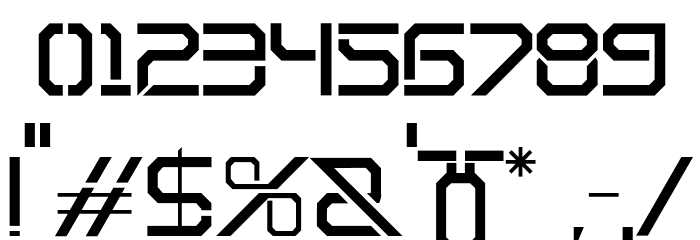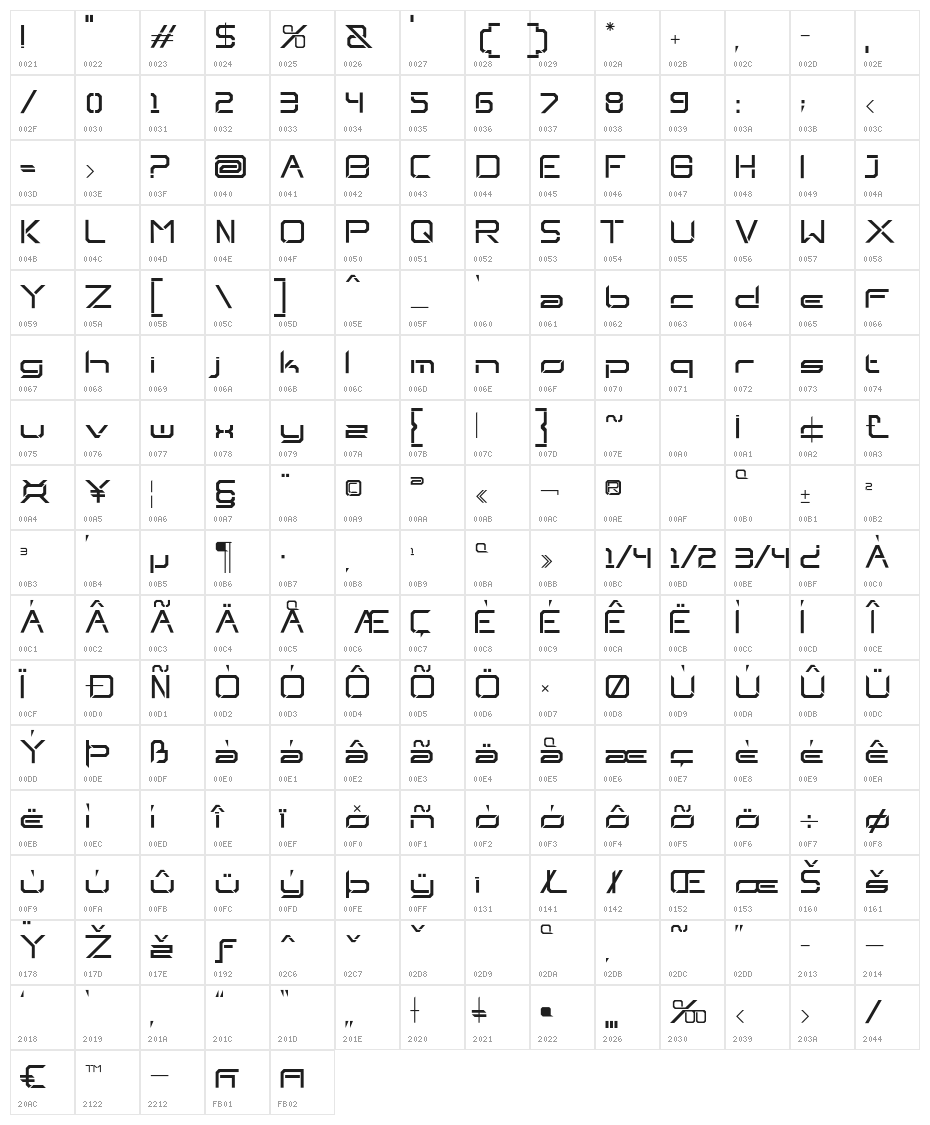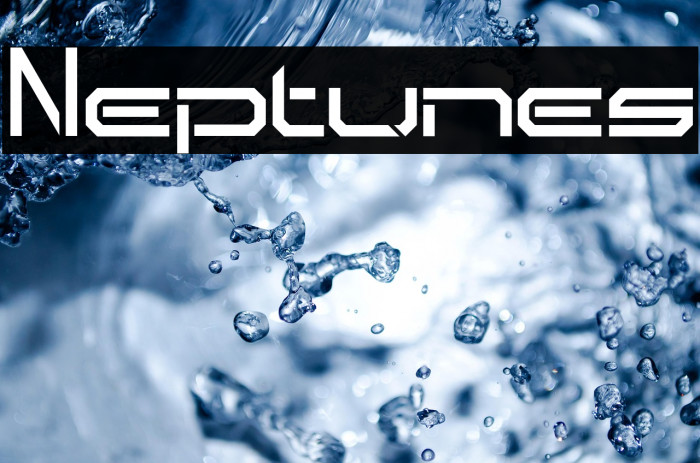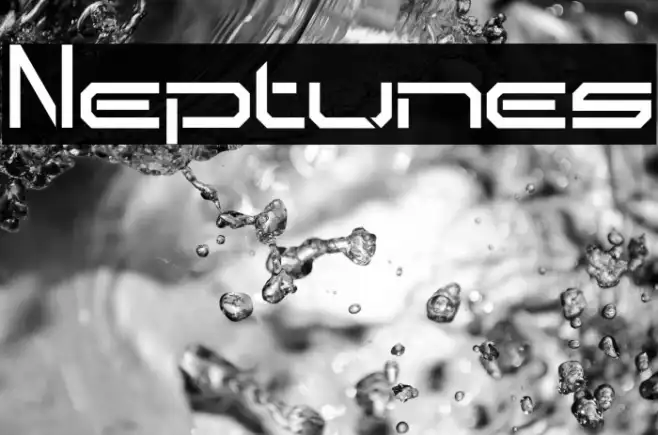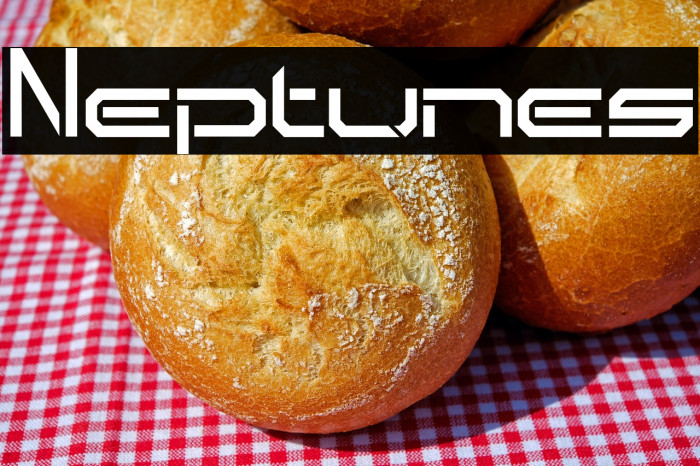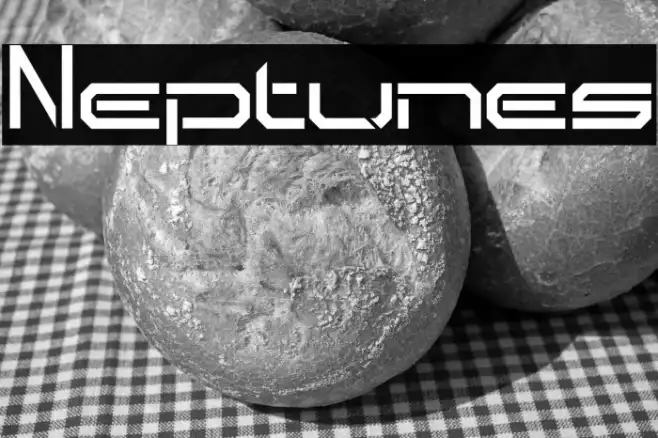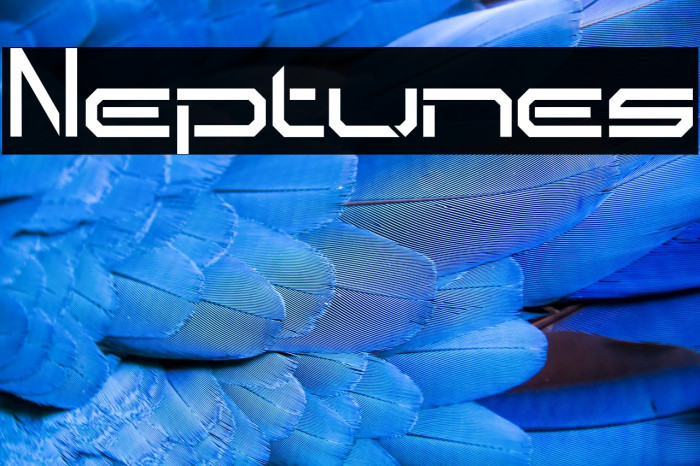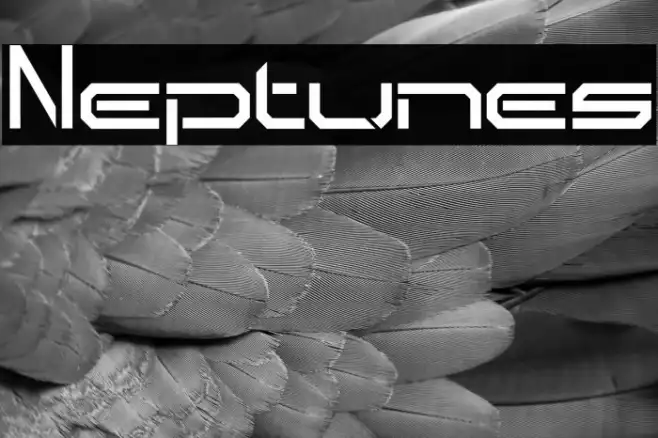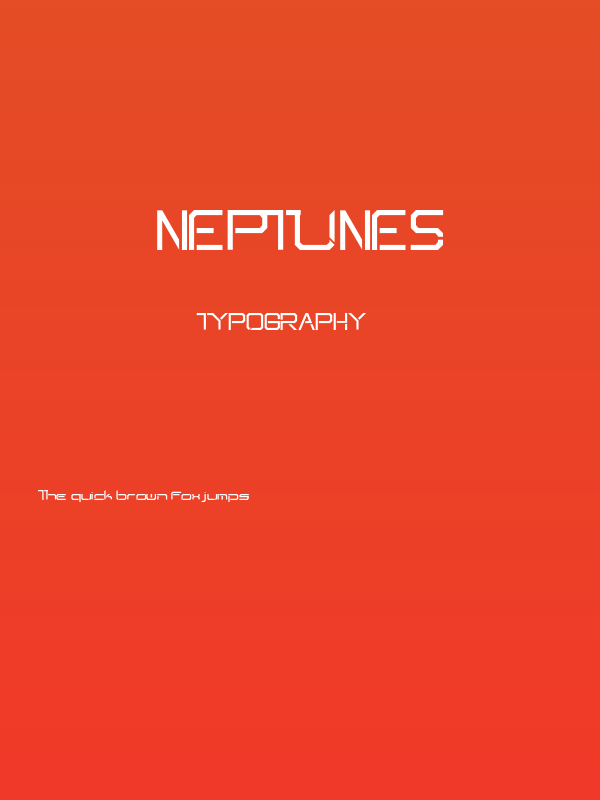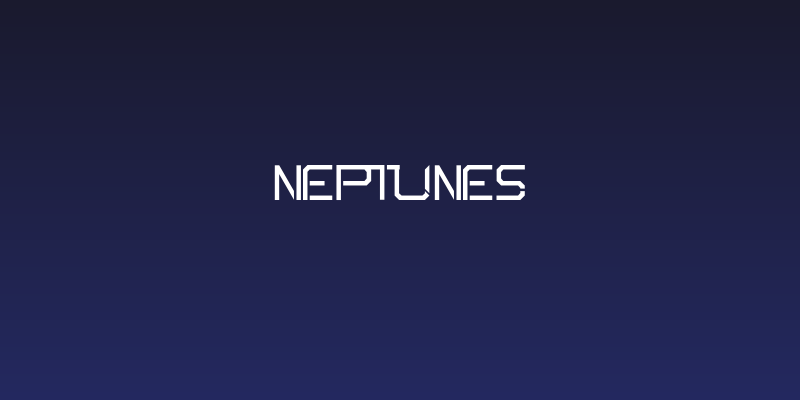
Neptunes Font
Neptunes Description
This font features a futuristic and angular design, characterized by sharp edges and geometric shapes. The uppercase letters are bold and striking, with a consistent angular theme that gives a sense of modernity and innovation. The lowercase letters maintain the same angular style, ensuring uniformity across the typeface. Numbers and special characters are designed with the same geometric precision, making them stand out while maintaining readability. The overall appearance is sleek and modern, suitable for projects that require a cutting-edge and tech-savvy look.
| Proposed Projects | Ideal for technology branding, sci-fi movie posters, video game titles, and modern digital interfaces. |